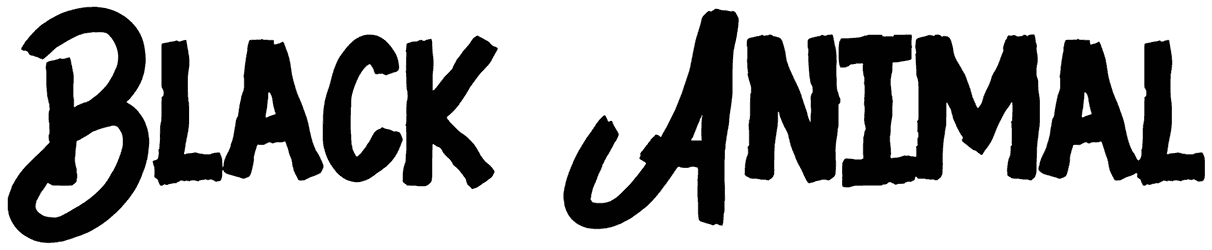
Black Animal Font
Here we are again with Black Animal, a magical fancy font that adds a personalized touch to any kind of professional artwork such as flyers, banners, product packaging, editorial projects, and brochures. Although it doesn’t support lowercase letters, it offers two versions of uppercase letters and has the real potential to bring a sense of innovation, whimsical, jauntiness, or drama to your graphic content.